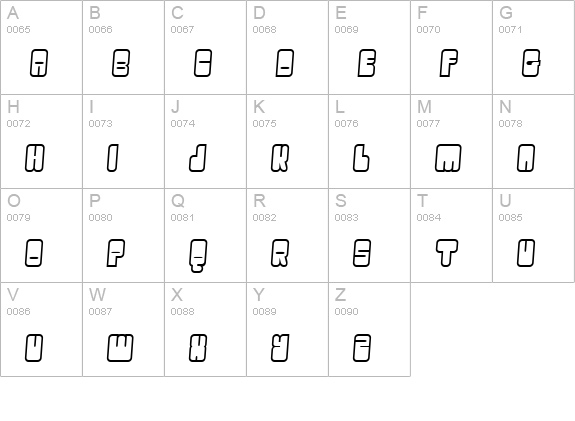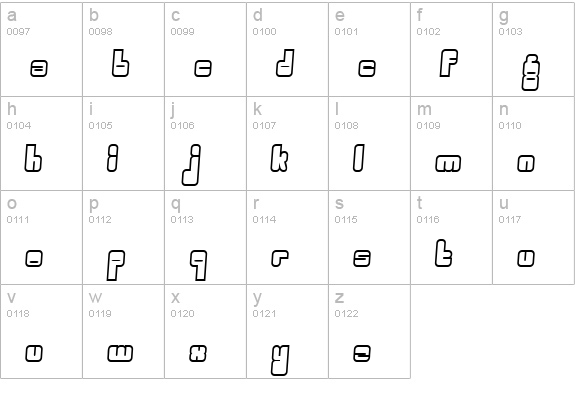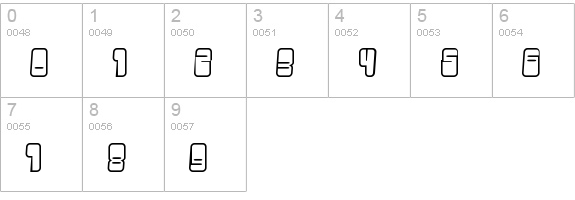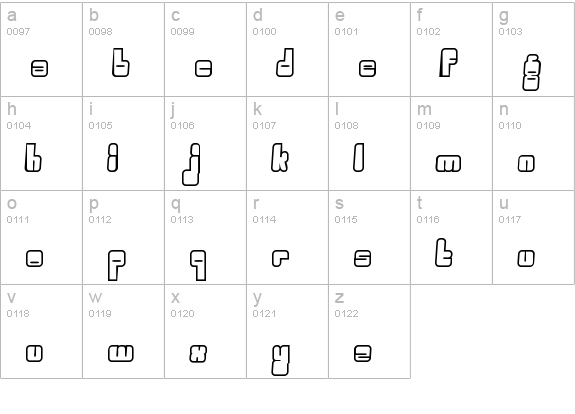
Oggle Font Details
Introducing Oggle font, a versatile and stylish typeface that is sure to make a statement in any design project. With its sleek lines and modern aesthetic, Oggle font is perfect for a wide range of applications, from branding and advertising to web design and social media graphics. What sets Oggle font apart is not just its striking design, but also the fact that it is available for free download at FontsMarket.com. That's right, you can now access this premium font without any cost, making it the perfect choice for budget-conscious designers and creatives looking to elevate their work without breaking the bank. Whether you're looking to add a touch of sophistication to your next project or simply want to explore a new typeface, Oggle font is the perfect choice. Download it today and see for yourself why this font is quickly becoming a favorite among designers everywhere.